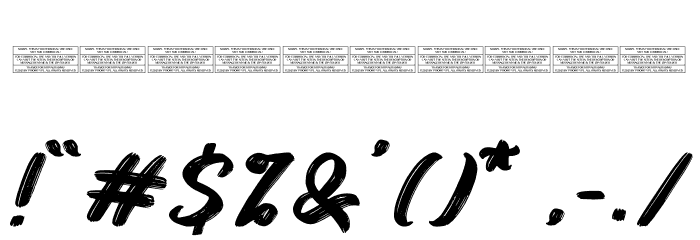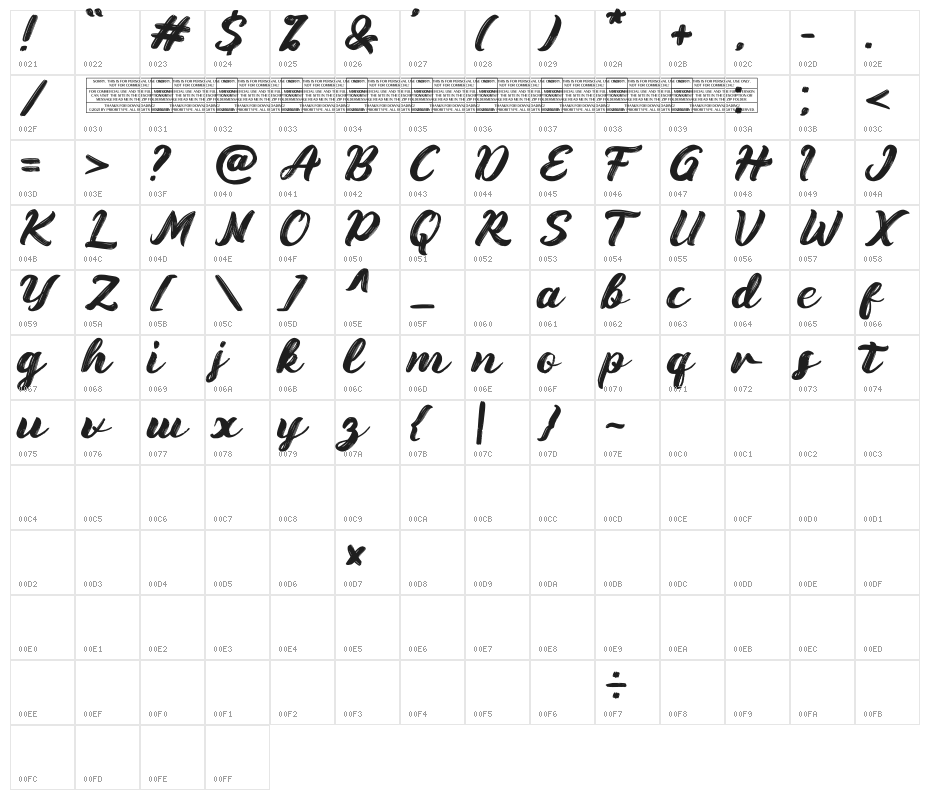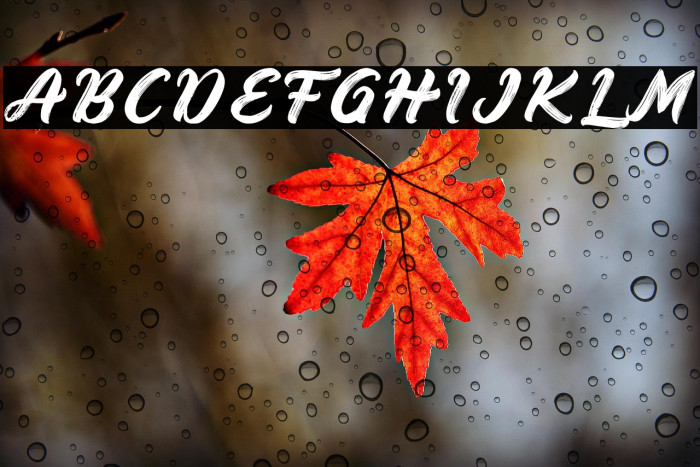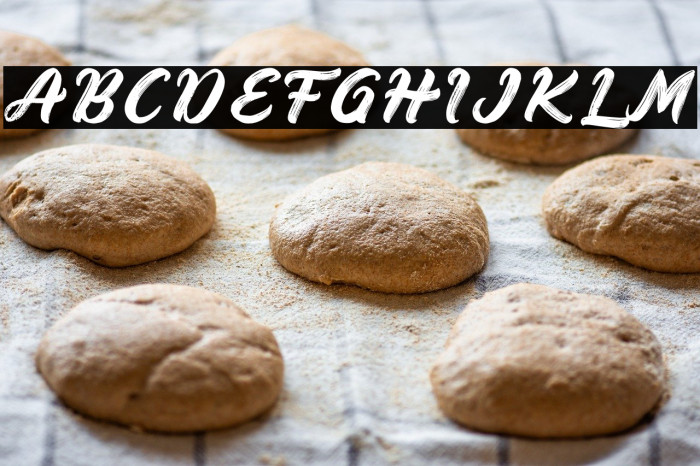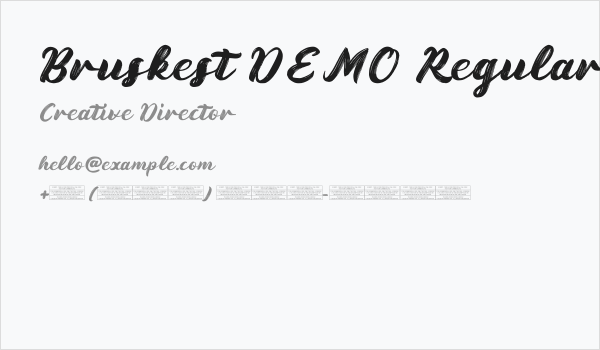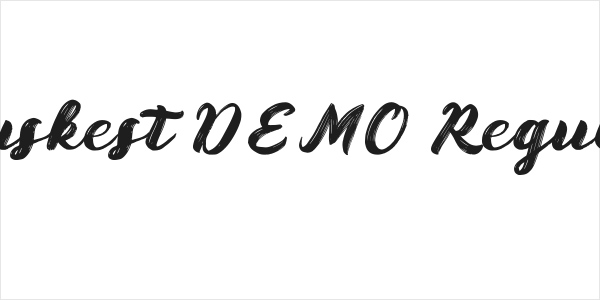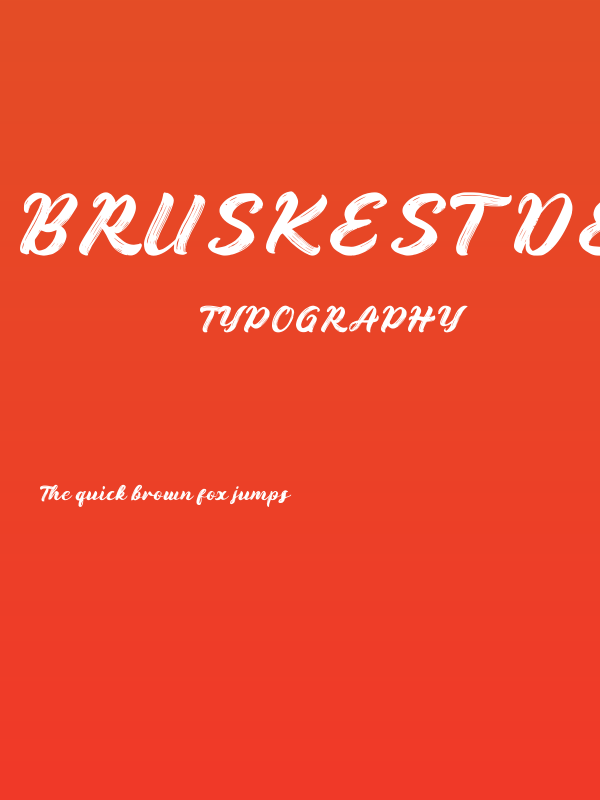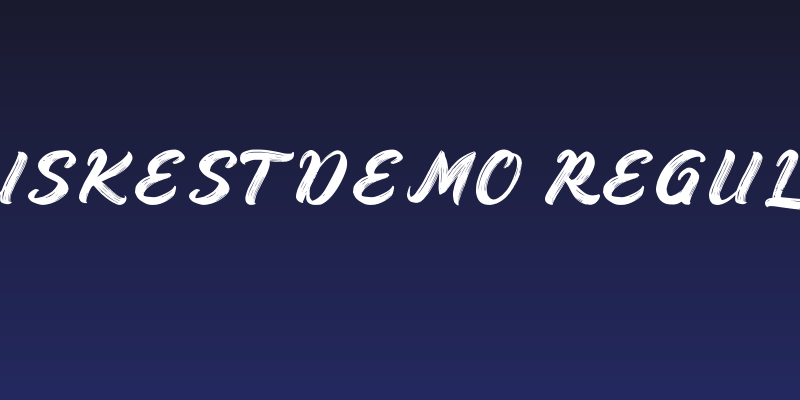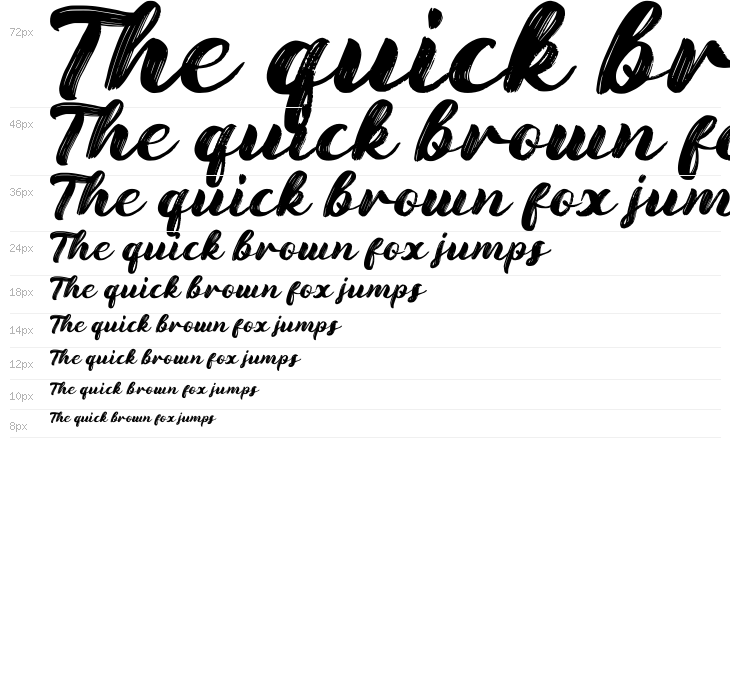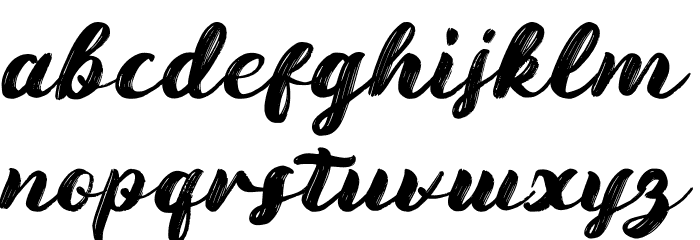
Bruskest DEMO Regular Font
Bruskest DEMO Regular Description
This font features a bold and expressive script style, characterized by its dynamic brush strokes and fluid, cursive forms. The uppercase and lowercase letters exhibit a sense of movement and energy, with thick and thin variations that add depth and texture. The numerals and special characters maintain the same lively aesthetic, making the font suitable for creative and artistic projects. Its overall appearance is both modern and playful, capturing attention with its unique flair.
| Use Case | Logos, Headlines, Artistic designs |
| Proposed Projects | Ideal for branding, posters, invitations, and artistic designs that require a lively and creative touch. |